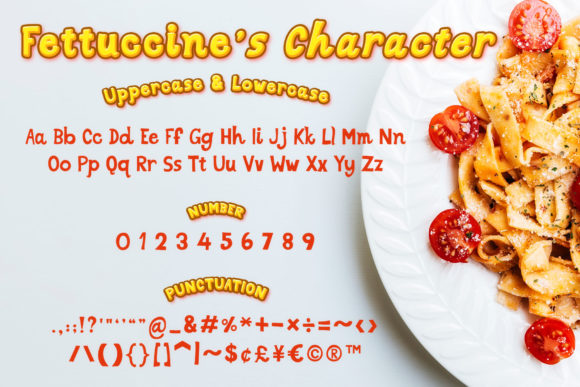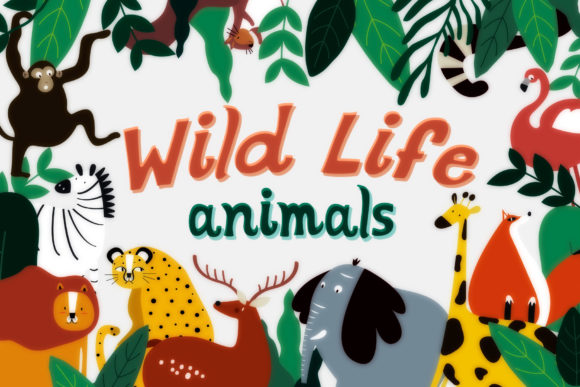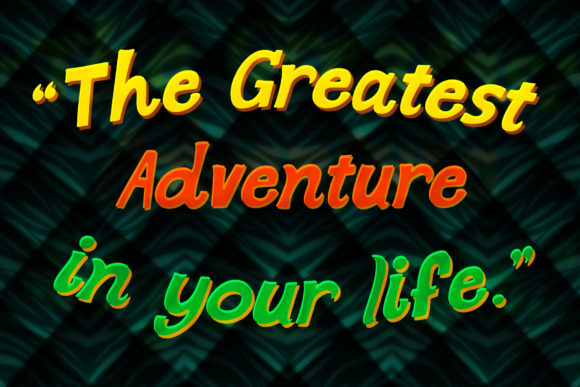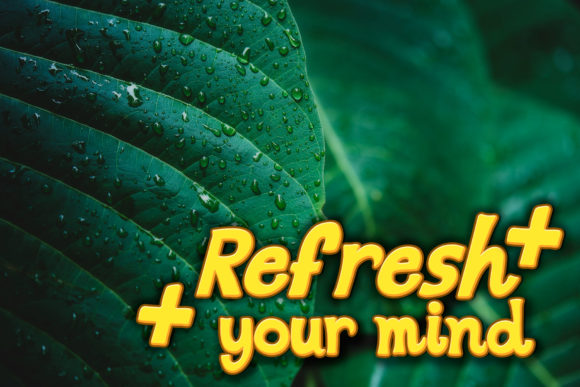
Fettuccine Font: Adding a Dash of Fun and Quirkiness to Your Designs
Fettuccine Font is a unique and playful typeface that embodies the essence of fun, quirkiness, and authenticity. Its childlike style is sure to bring a smile to your face and add a touch of whimsy to any project. In this article, we’ll dive into the world of Fettuccine Font and explore how you can get creative with it to brighten up your designs.
The Story Behind Fettuccine Font
Fettuccine Font is a hand-drawn typeface that is inspired by the classic Italian dish, fettuccine. The font’s creator aimed to capture the playful and carefree spirit of childhood, making it perfect for designs that require a dash of personality. With its irregular shapes and imperfect lines, Fettuccine Font exudes a sense of authenticity and charm that is hard to resist.
Key Features of Fettuccine Font
Fettuccine Font boasts a range of features that make it a standout typeface. Some of its key characteristics include:
- Hand-drawn and hand-crafted with love
- Childlike and playful style
- Unique and quirky personality
- Perfect for designs that require a touch of whimsy
Uses for Fettuccine Font
Fettuccine Font is a versatile typeface that can be used in a variety of design projects. Here are some ideas to get you started:
- Children’s books and educational materials: Fettuccine Font is perfect for kids’ books, activity sheets, and educational materials that require a playful and engaging tone.
- Branding and packaging: Add a touch of whimsy to your brand’s packaging and marketing materials with Fettuccine Font. It’s ideal for brands that want to convey a sense of fun and playfulness.
- Invitations and party decor: Use Fettuccine Font to create eye-catching invitations, party hats, and decorations that will make your celebrations unforgettable.
- Digital graphics and animations: Fettuccine Font can add a dash of personality to your digital graphics, animations, and videos. Use it to create engaging social media content, explainer videos, or website headers.
Tips for Using Fettuccine Font
To get the most out of Fettuccine Font, here are some tips to keep in mind:
- Mix and match: Combine Fettuccine Font with other typefaces to create a unique and visually appealing design.
- Experiment with colors: Fettuccine Font looks great in bold, bright colors. Don’t be afraid to experiment with different hues and combinations.
- Add illustrations: Fettuccine Font pairs perfectly with illustrations and graphics. Add some fun and quirky illustrations to bring your design to life.
- Keep it simple: Don’t overcomplicate your design. Fettuccine Font is perfect for simple, yet effective designs that require a touch of personality.
Fettuccine Font is a unique and playful typeface that can add a dash of fun and quirkiness to any design project. Its childlike style and irregular shapes make it perfect for designs that require a touch of authenticity and whimsy. With its versatility and range of uses, Fettuccine Font is sure to become a favorite among designers and crafters. So why not get creative with Fettuccine Font and brighten up your next project?
Get Creative with Fettuccine Font